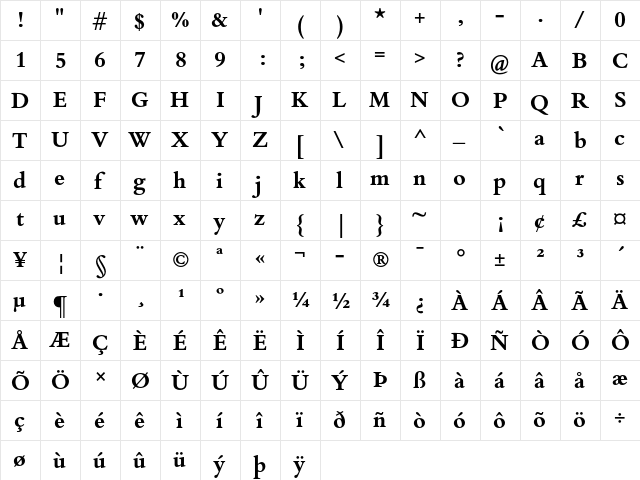
Bembo Book MT Pro Bold Font Preview
Bembo Book MT Pro Bold
Design Context for Bembo Book MT Pro Typeface
Bembo Book MT Pro is a composed and adaptable typeface that performs quietly and consistently across a wide range of design contexts. The heavy weight commands attention and anchors typographic hierarchies.